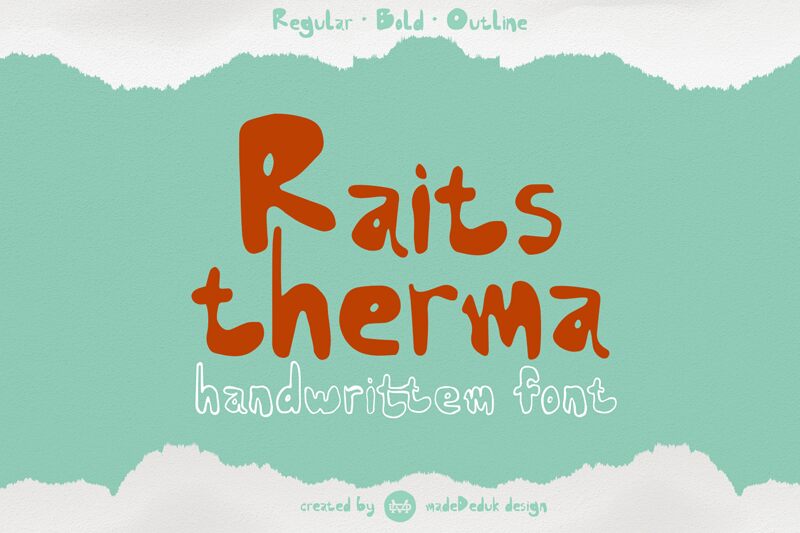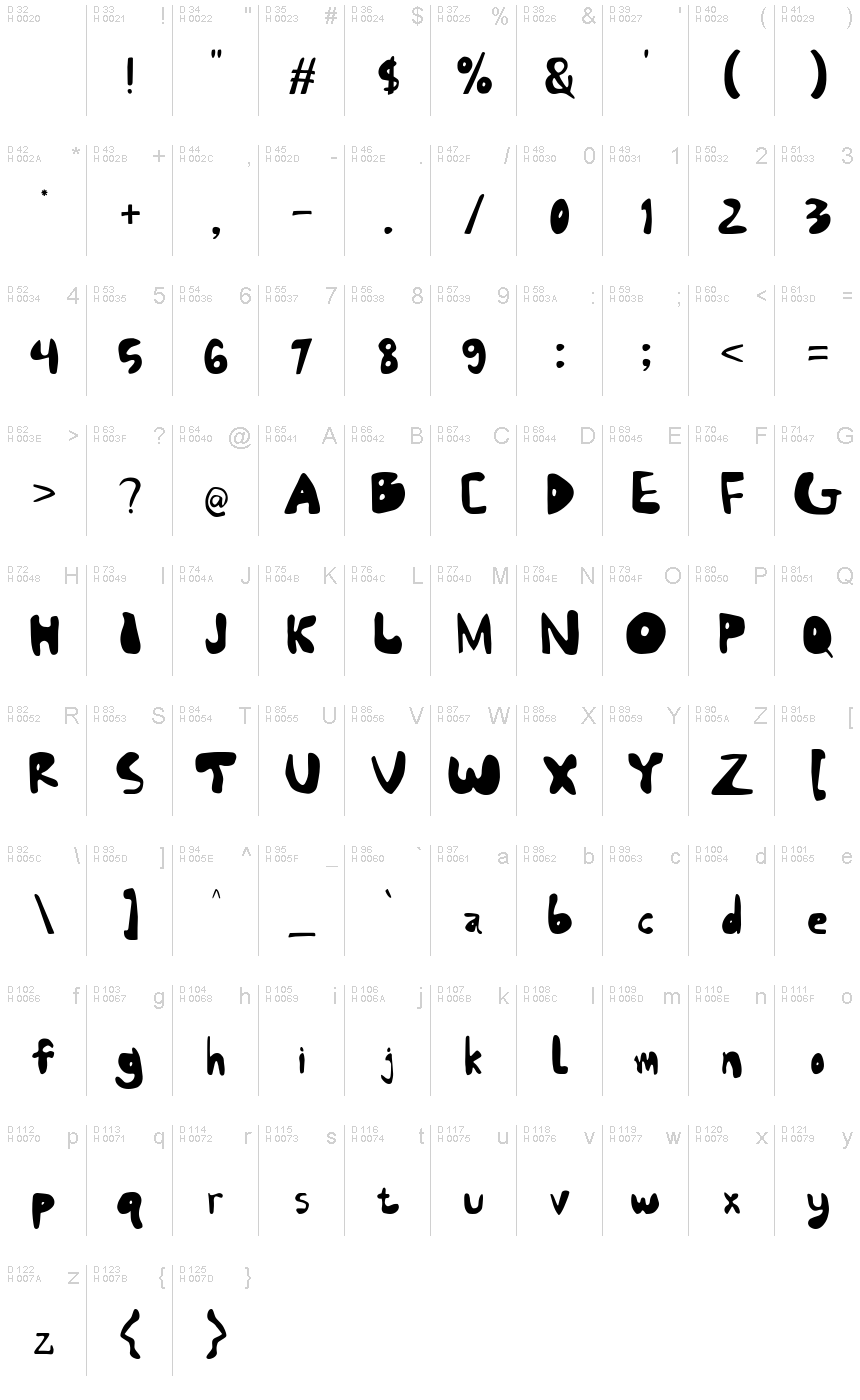
Raits Therma Demo Regular
Raits Therma font is a playful addition to madeDeduk’s numerous portfolio of quality fonts. The cartoon typeface features exaggerated detailing, casual cuts, and unusual forms for a truly imaginative outcome. Add this whimsical typography to your own projects for an extra dose of fun.
Use it in animated movie posters, comics, children’s book covers or pages, digital games’ interfaces and titles and even logo design projects that need a hip final look!